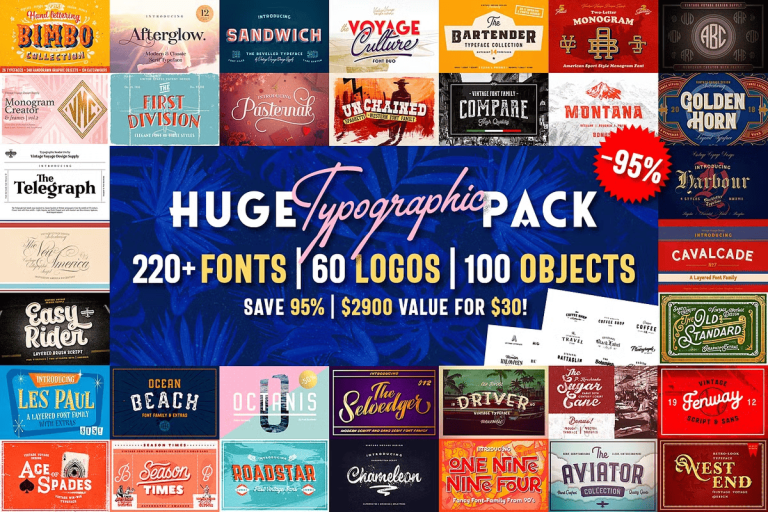
Stop searching. Stop compromising. The Huge Font Pack delivers everything a designer, brand, or creative entrepreneur needs — in one massive, value-packed bundle. At just $30, you get **44 professional typefaces, 221 unique fonts**, and **60 fully editable logo templates** — all created by award-winning typographer VintageVoyage. That’s a jaw-dropping 95% savings off the normal retail value of $2,900. This is not just a discount — it’s a creative game-changer.
Whether you’re building a brand identity, designing merchandise, creating social media content, or crafting posters, this pack puts an entire typographic arsenal at your fingertips. Every font is meticulously crafted for maximum versatility, style, and impact across print, digital, and motion projects.
Explore a Massive Variety of Style, From Serene to Bold
With such a diverse range of typographic styles, there’s no creative dead end. This bundle spans every major genre, so you’ll always find the perfect typeface for your next project:
- Serif Fonts: Elegant, timeless, and sophisticated — perfect for luxury branding, editorial design, and high-end publications.
- Sans-Serif & Geometric: Clean, modern, and versatile — ideal for tech startups, corporate branding, and minimalistic layouts.
- Script & Handwritten: Flowing, expressive, and personal — perfect for invitations, packaging, and brand storytelling.
- Slab Serifs & Display Fonts: Strong, bold, and attention-grabbing — built for headlines, posters, and logos that demand attention.
- Monograms & Fancy Styles: Artistic, decorative, and ornate — fantastic for wedding stations, luxury labels, and exclusive designs.
- Cartoon & Playful: Fun, quirky, and energetic — perfect for children’s branding, games, and youth-focused campaigns.
From the sleek elegance of Montana to the bold statement of Telegraph, from the nostalgic flair of Afterglow to the urban vibe of Bartender, every font tells a story. And with multiple weights (Regular, Light, Bold, Condensed) in most families, you control every level of visual intensity.
Jumpstart Your Brand with 60 Pre-Made Logo Templates
Each logo combines a signature font from the pack with professional composition, spacing, and layout. Simply replace the placeholder text, adjust the colors, add your logo mark, and you’re done — all in under 15 minutes. Whether you’re launching a new business, rebranding a shop, or designing a portfolio, these templates save you days of design work.